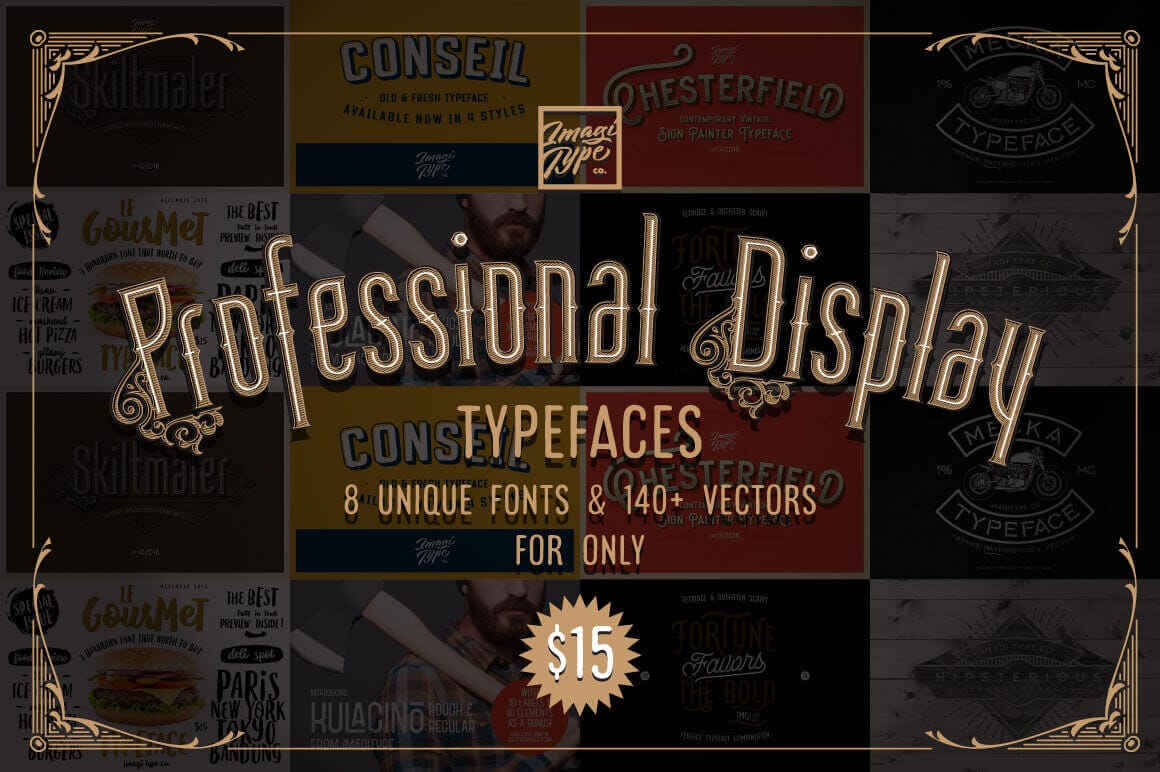
Time to give your typeface toolbox a bit of a boost! This Mighty Deal features 8 Professional Display Fonts and Shapes sets to make your latest project even more of a masterpiece! Inspired by sign paintings from the golden age of yesteryear, these fonts feature a variety of styles, OpenType Features and even fully scalable vector shapes.
- 8 professional display fonts and shapes.
- Vintage look inspired by the golden age of sign painting.
- Includes 30 hipster and vintage vector shapes.
- Loads of OpenType Features and multiple styles.